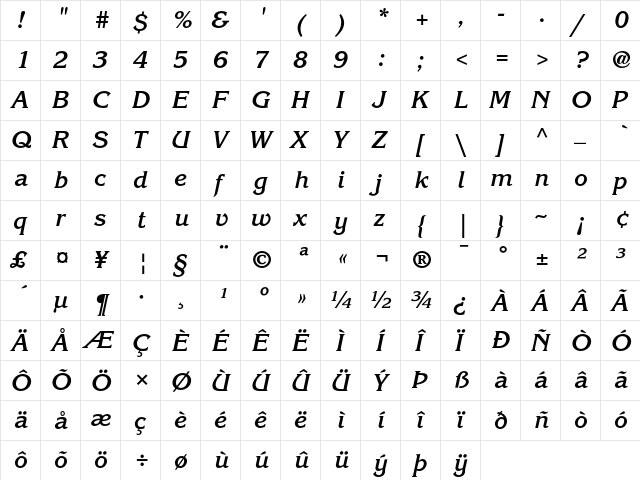
ITC Korinna Kursiv Bold Font Preview
Design Context for ITC Korinna Typeface
ITC Korinna takes a measured approach to typography — its balanced proportions and neutral character make it a reliable workhorse for both digital and print work. The dynamic lean of this cut emphasises speed and emphasis in any layout. The heavy weight commands attention and anchors typographic hierarchies.
Pro Tip: Try ITC Korinna for annotation and caption copy alongside an upright companion — the contrast in angle creates a dynamic but ordered typographic system.